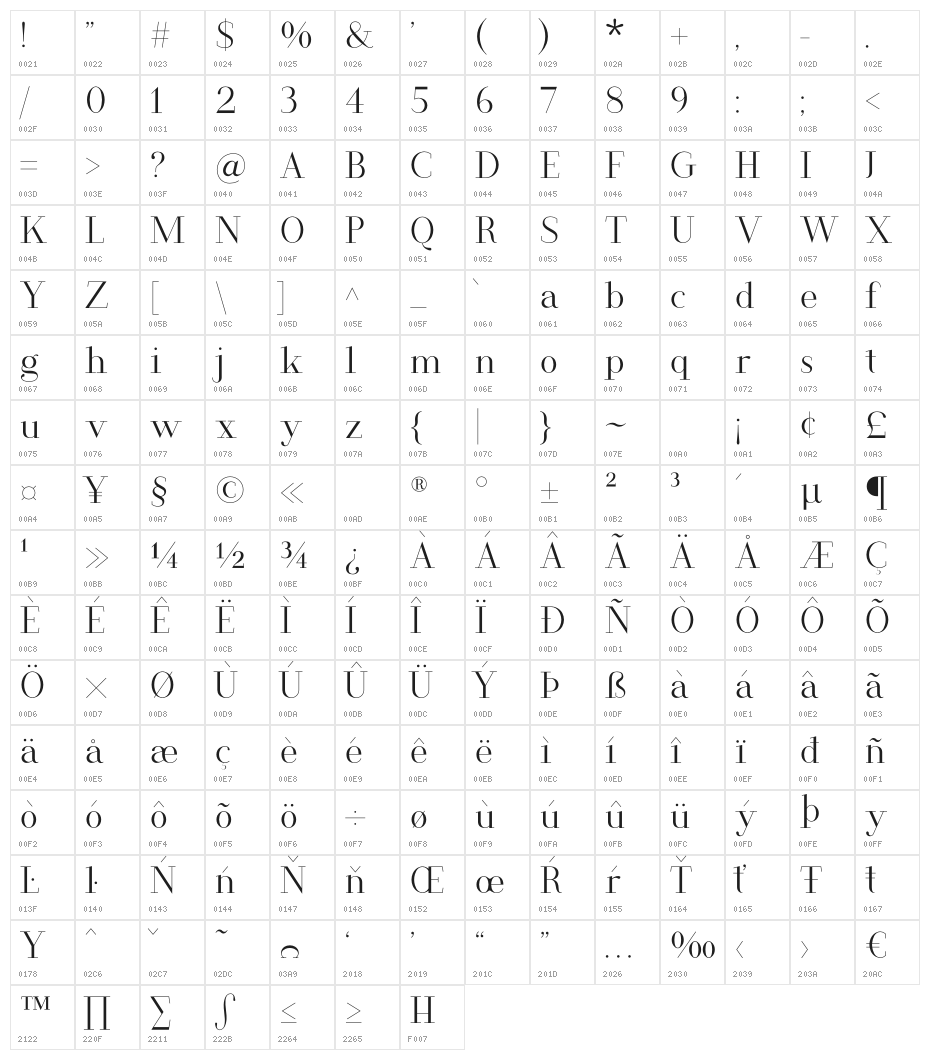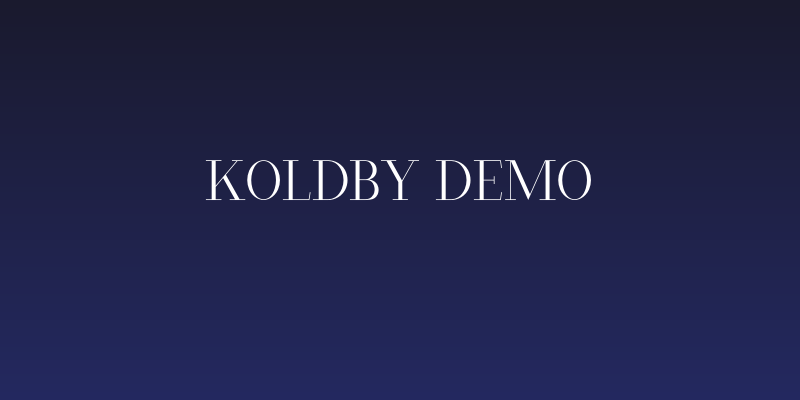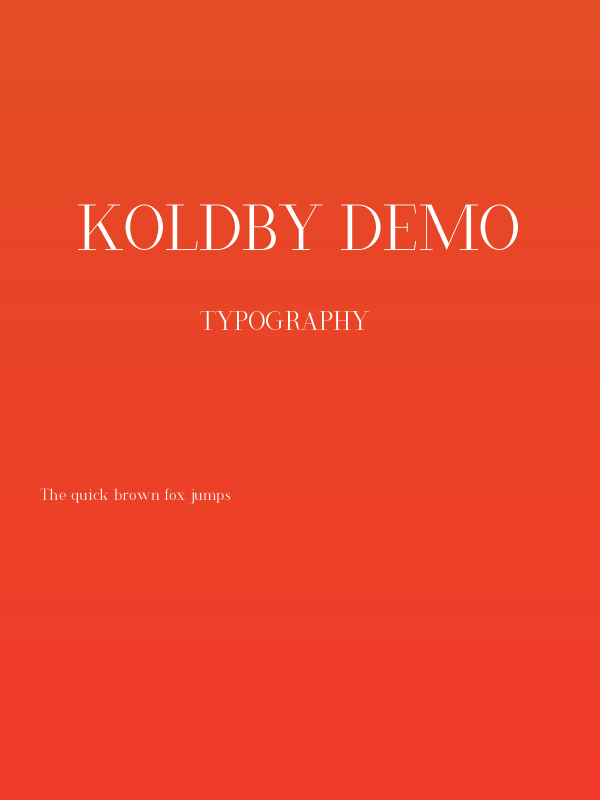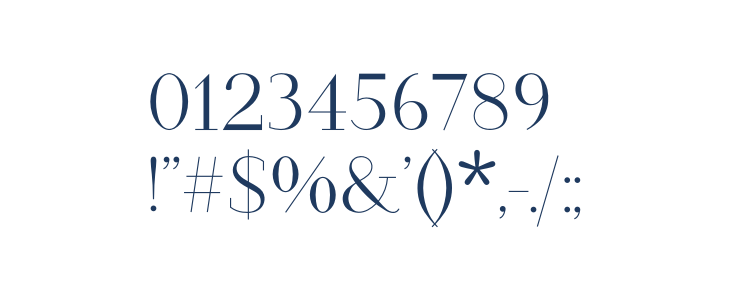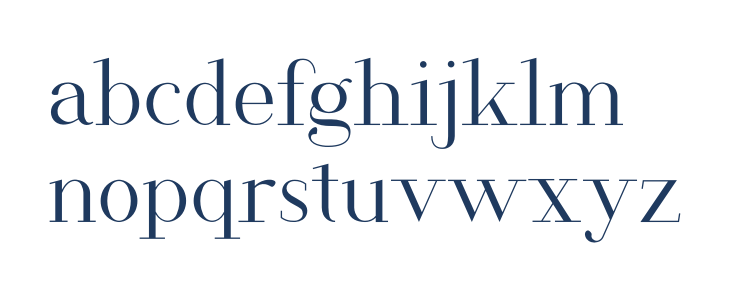
Koldby DEMO Font
Koldby DEMO Description
This font features a classic serif style with elegant, thin strokes and high contrast between thick and thin lines. The uppercase letters are tall and stately, with a refined presence that suggests sophistication and formality. The lowercase letters maintain a consistent style, offering a harmonious balance with the uppercase characters. The numerals are clear and distinct, matching the overall aesthetic with their elegant curves and sharp serifs. Special characters are thoughtfully designed, maintaining the font's cohesive look. This typeface is ideal for projects that require a touch of elegance and tradition.
| Proposed Projects | Ideal for luxury branding, editorial design, wedding invitations, and formal documents. |